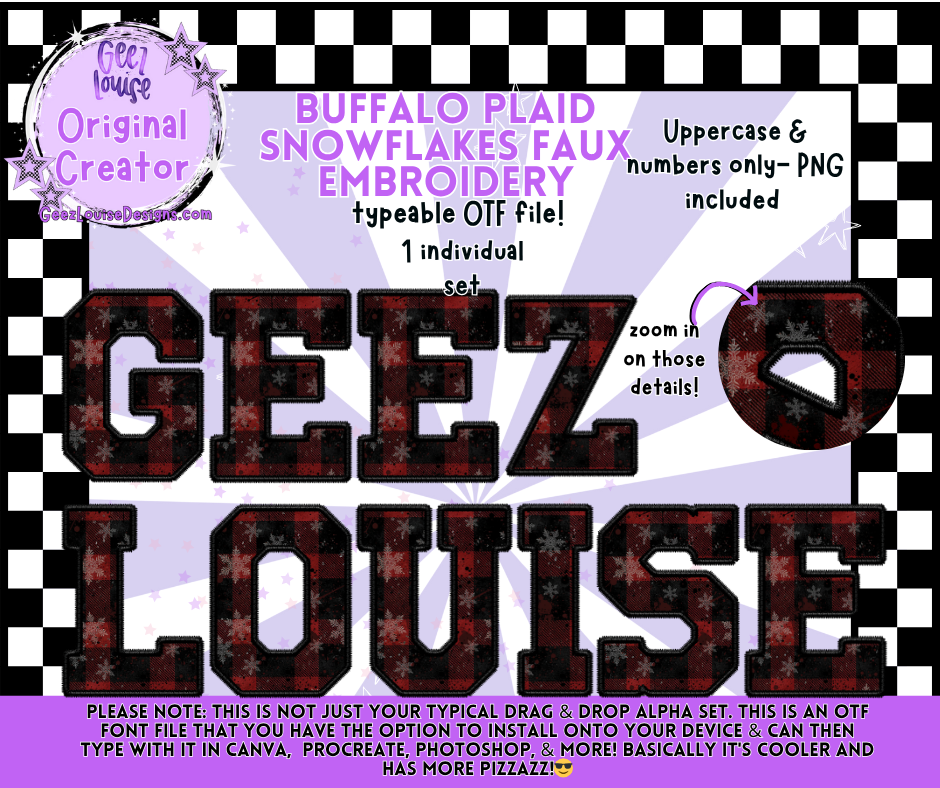
Buffalo Plaid Snowflakes Faux Embroidery Alpha | OTF Font + PNG Set
Cozy up your winter designs with this Buffalo Plaid Snowflakes Faux Embroidery Alpha!
This festive set blends rustic charm with digital versatility — perfect for creating holiday apparel, signage, and printables. Designed to look like textured embroidery with a snowy plaid twist, it adds instant depth and seasonal flair to any project.
Uppercase letters + numbers
Faux embroidery texture with snowflake plaid details
This isn’t your basic alpha set — it’s a typeable OTF font, so you can use it just like text but with the look of embroidery and plaid all in one!